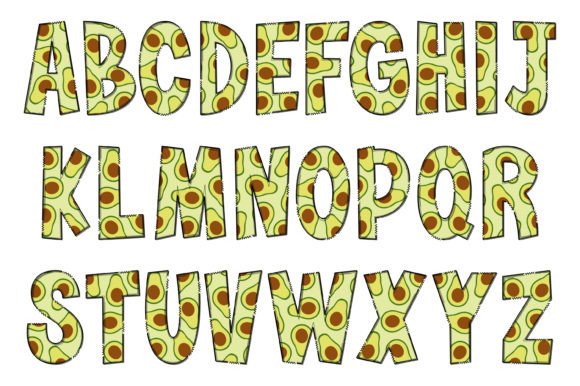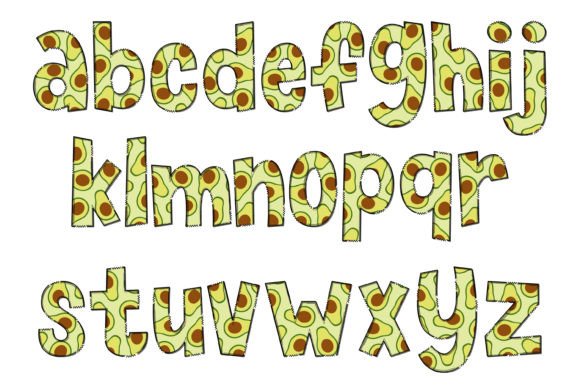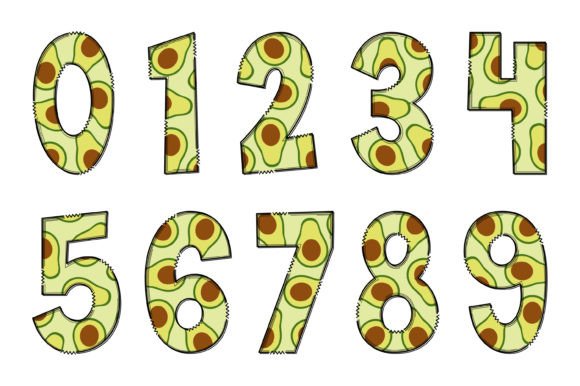
The Dreamy, Playful World of Avocado Dreams Font
I’ll never forget the time I was working on a children’s book project, trying to find the perfect font to bring the story to life. My client wanted something playful, yet easy to read, and I was determined to deliver. That’s when I stumbled upon Avocado Dreams font, and it was love at first sight! 💕
This charming font has since become a staple in my design toolkit, and I’m excited to share its magic with you. In this article, we’ll dive into the world of Avocado Dreams font, exploring its features, uses, and some practical tips on how to make the most of it.
Avocado Dreams Font: A Personal Review
- ✨ Whimsical and playful vibe, perfect for children’s books, posters, and invitations
- ✅ Easy to read, even for young audiences
- 💫 Color font (Opentype-SVG) with stunning visual effects
- 🤔 May require some experimentation to get the most out of its OpenType features
- Experiment with the font’s OpenType features, such as glyphs and stylistic alternates, to add visual interest
- Explore the font’s OpenType features, such as swashes and ligatures, to add a creative touch
One of the most exciting aspects of Avocado Dreams font is its OpenType features and glyphs. These special characters can add an extra layer of visual interest to your designs. To access them, follow these steps:
The Story Behind Avocado Dreams Font
Avocado Dreams font was created with the intention of bringing a playful, artistic feel to designs. Its creator, a talented type designer, was inspired by the whimsical world of children’s books and the beauty of avocados (yes, really!). The result is a font that’s both fun and functional.